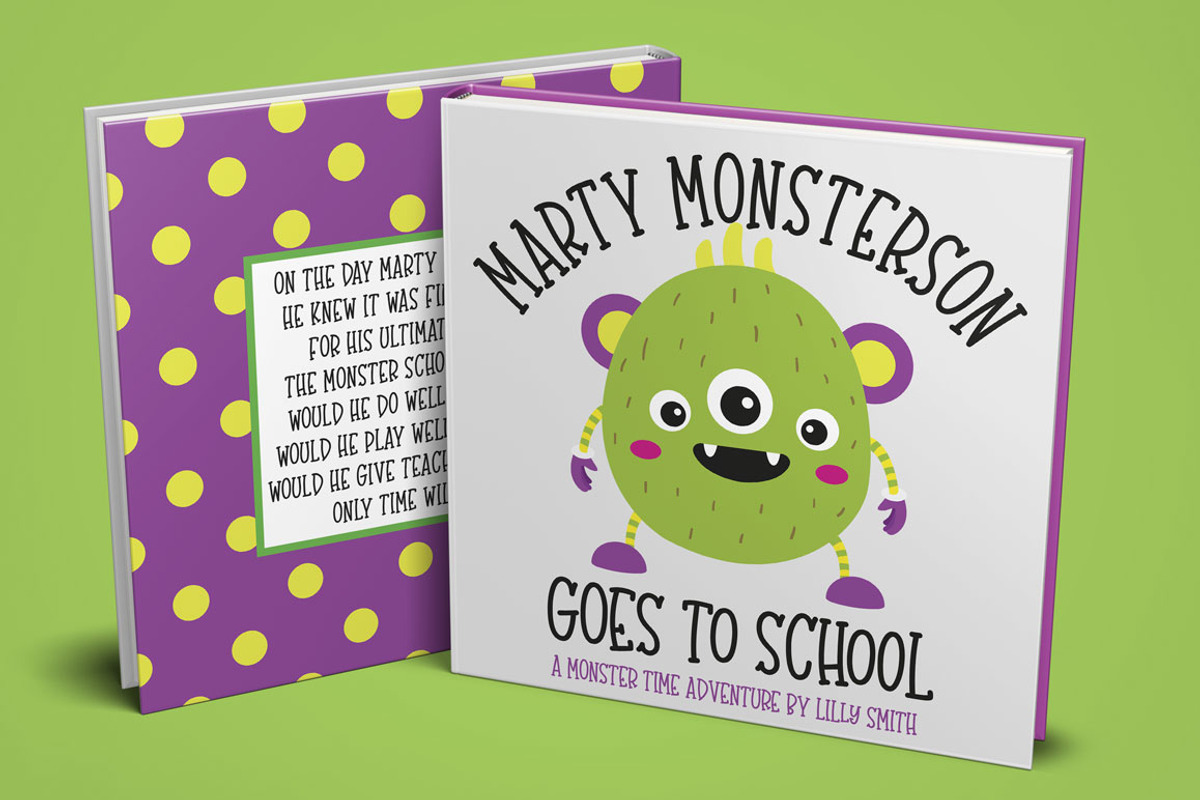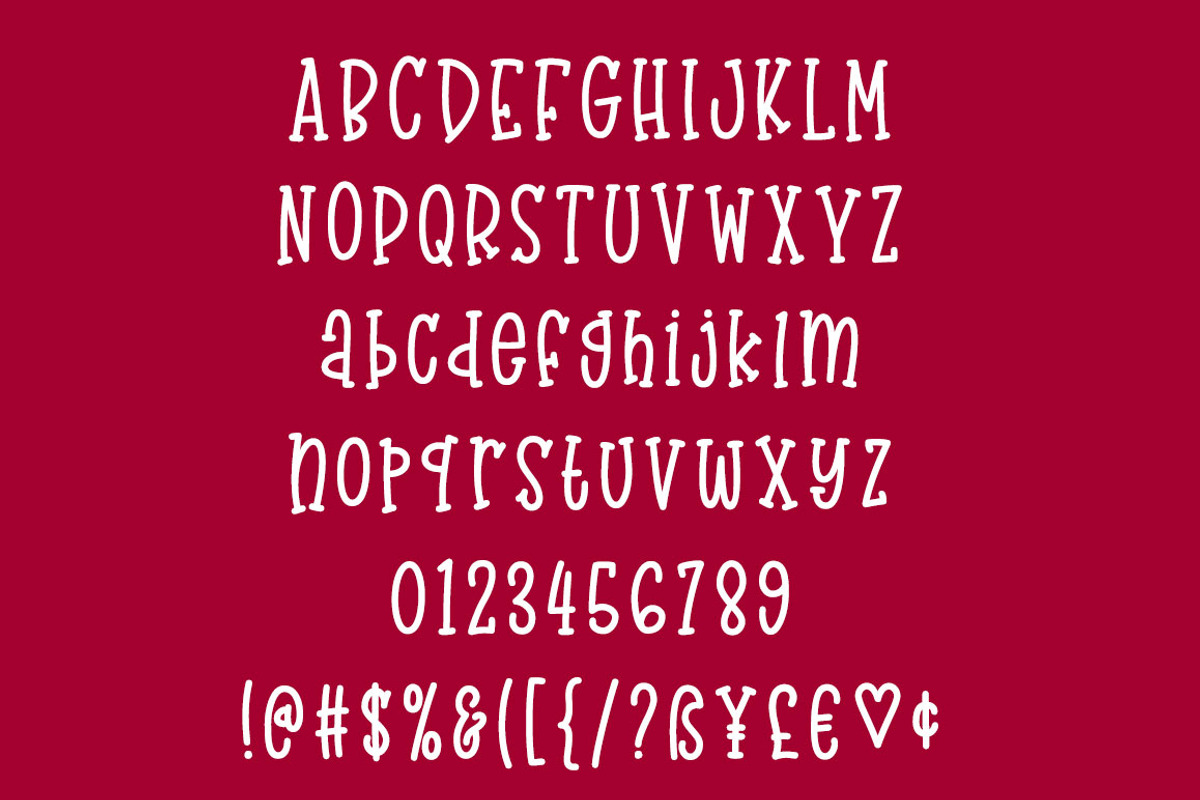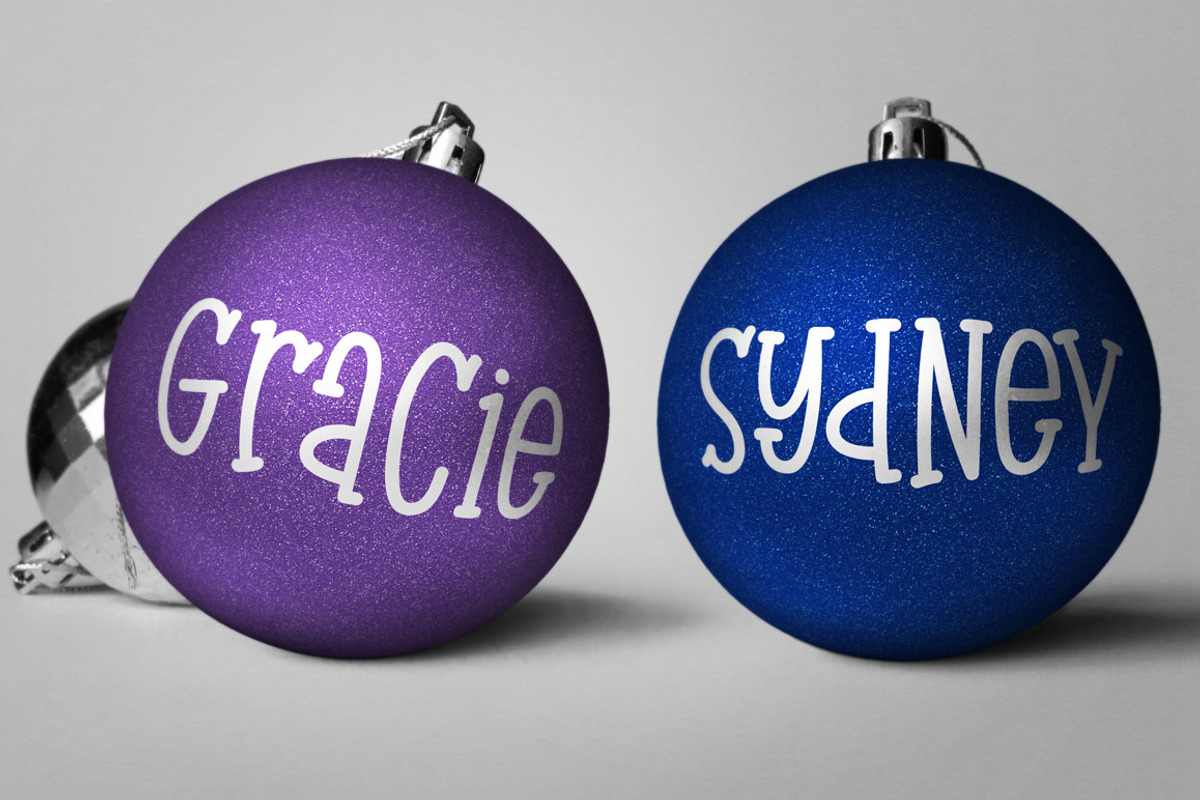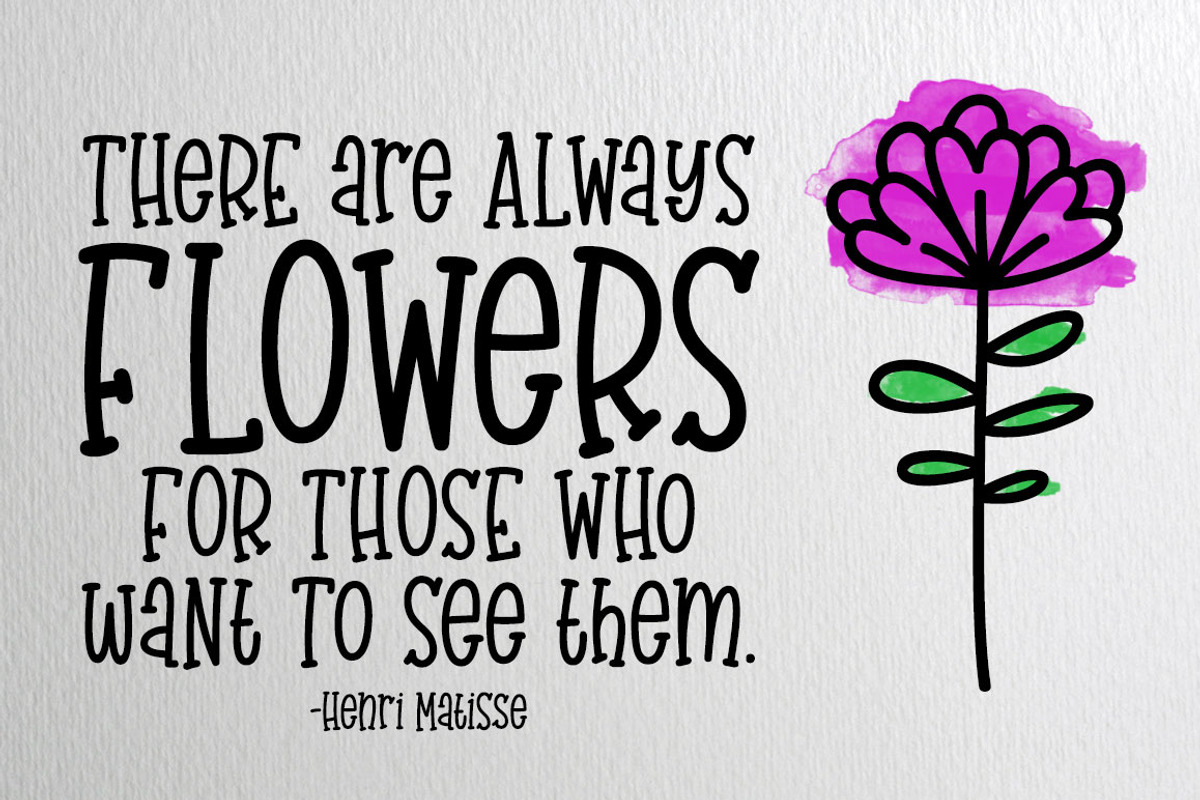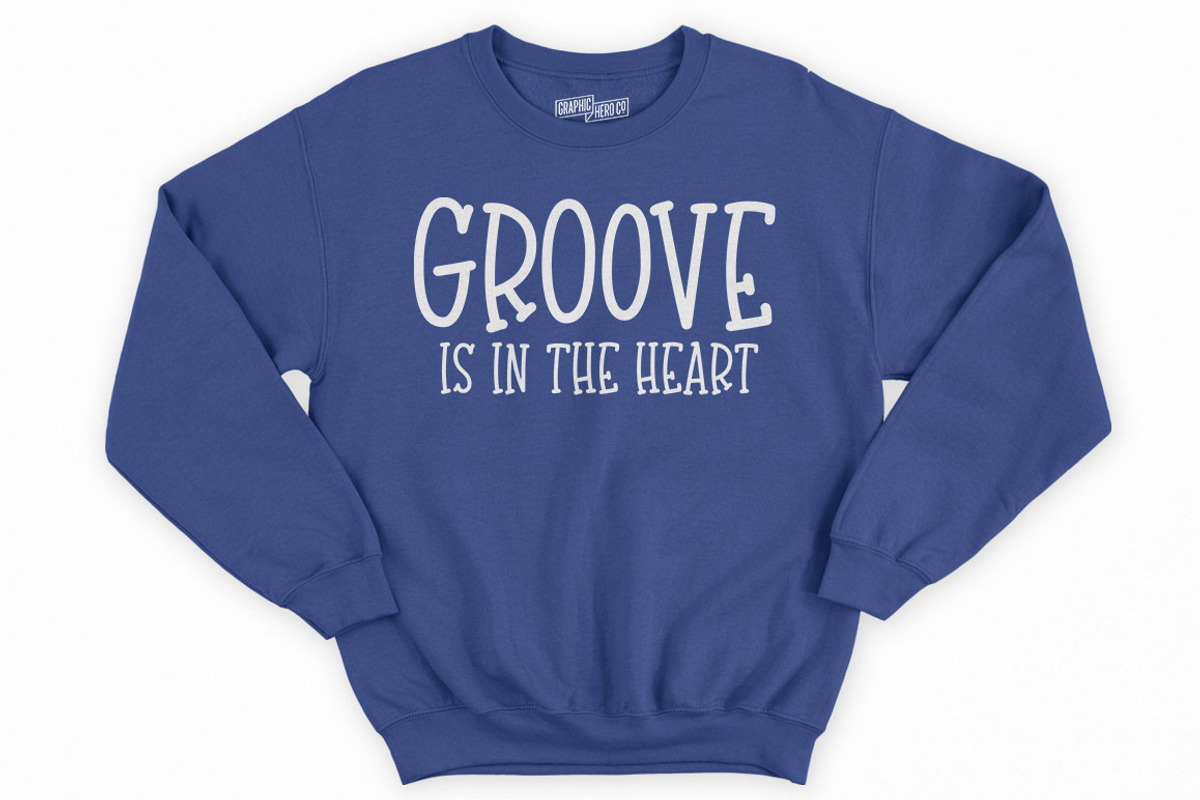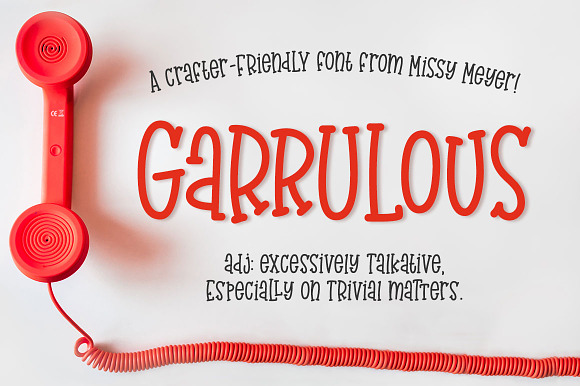
Garrulous: a fun tall serif font!
Looking for a tall, skinny, rounded serif font, with a fun hand-written feel? Look no farther than Garrulous!
Garrulous is a mixed-case font, with the lowercase letters standing just as tall as the uppercase, so you can mix and match uppercase and lowercase in the same word for an extra fun look. It also comes with 32 double-letter ligature pairs, 17 uppercase and 15 lowercase, so you won't have the exact same letter twice in a row.
As usual, the letters in Garrulous have been smoothed and had points/nodes reduced, to make everything sharper and easier for crafters. And I've included over 300 extended Latin characters for language support.